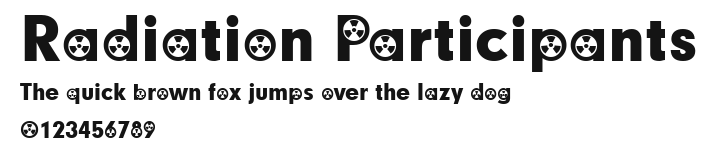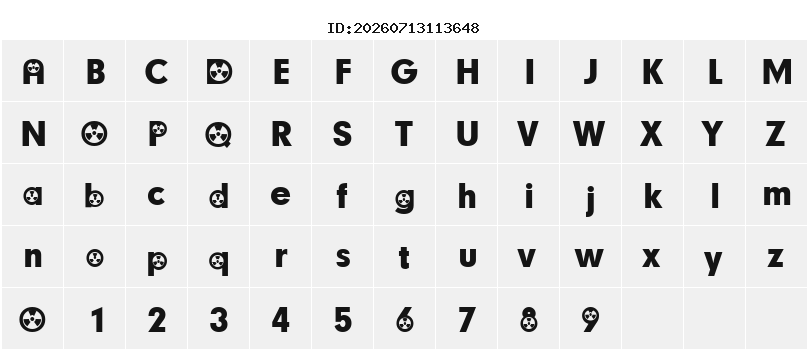
Radiation Participants.ttf is a modern, elegant sans-serif font designed for ultimate readability and visual harmony. Perfect for branding, headlines, web design, and print materials.